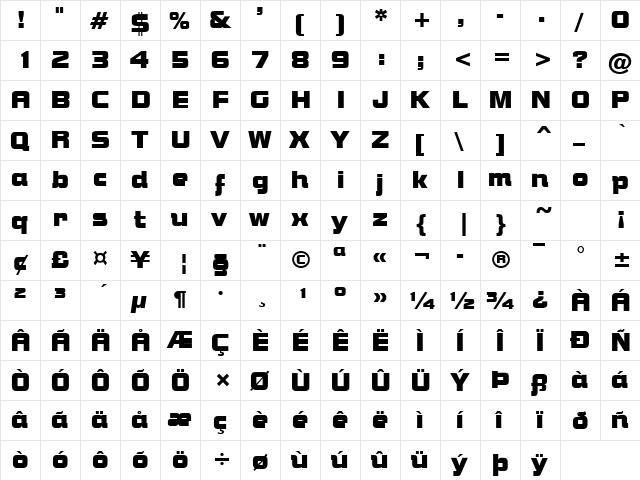
Nuts Regular Font Preview
Nuts Regular
Design Context for Nuts Typeface
Nuts is a composed and adaptable typeface that performs quietly and consistently across a wide range of design contexts.